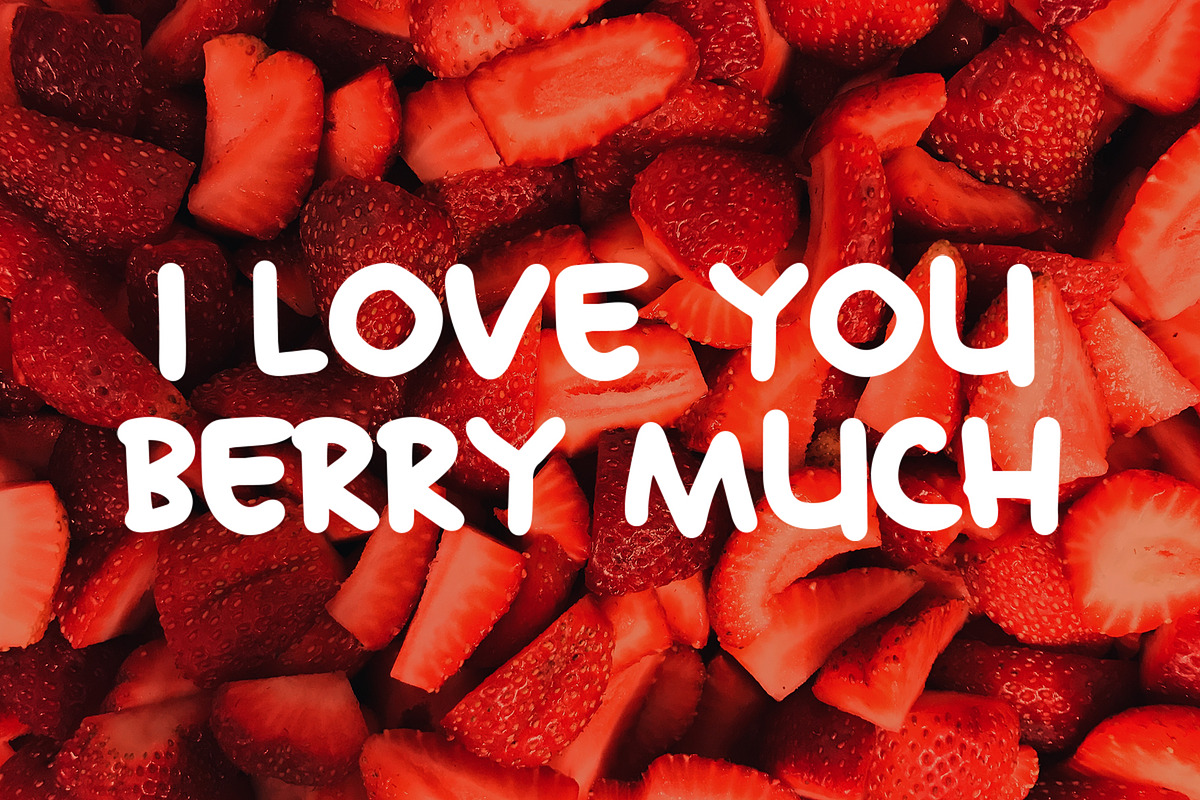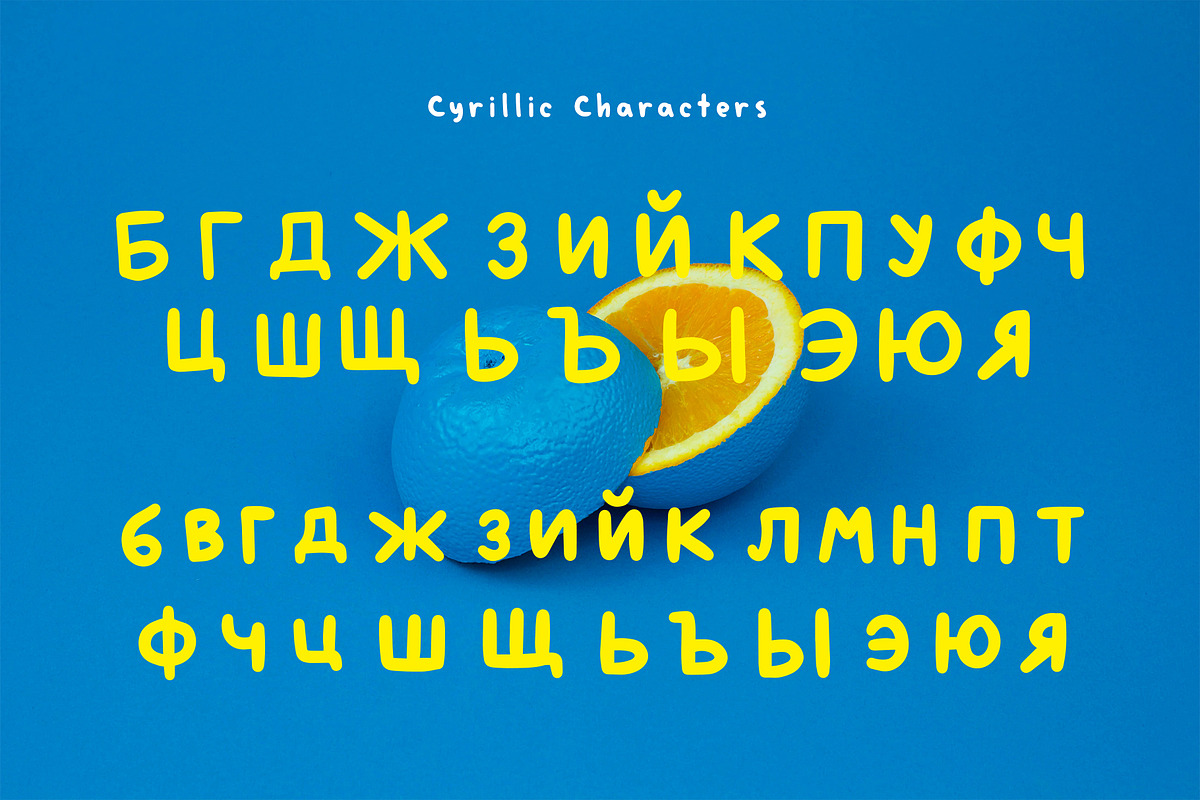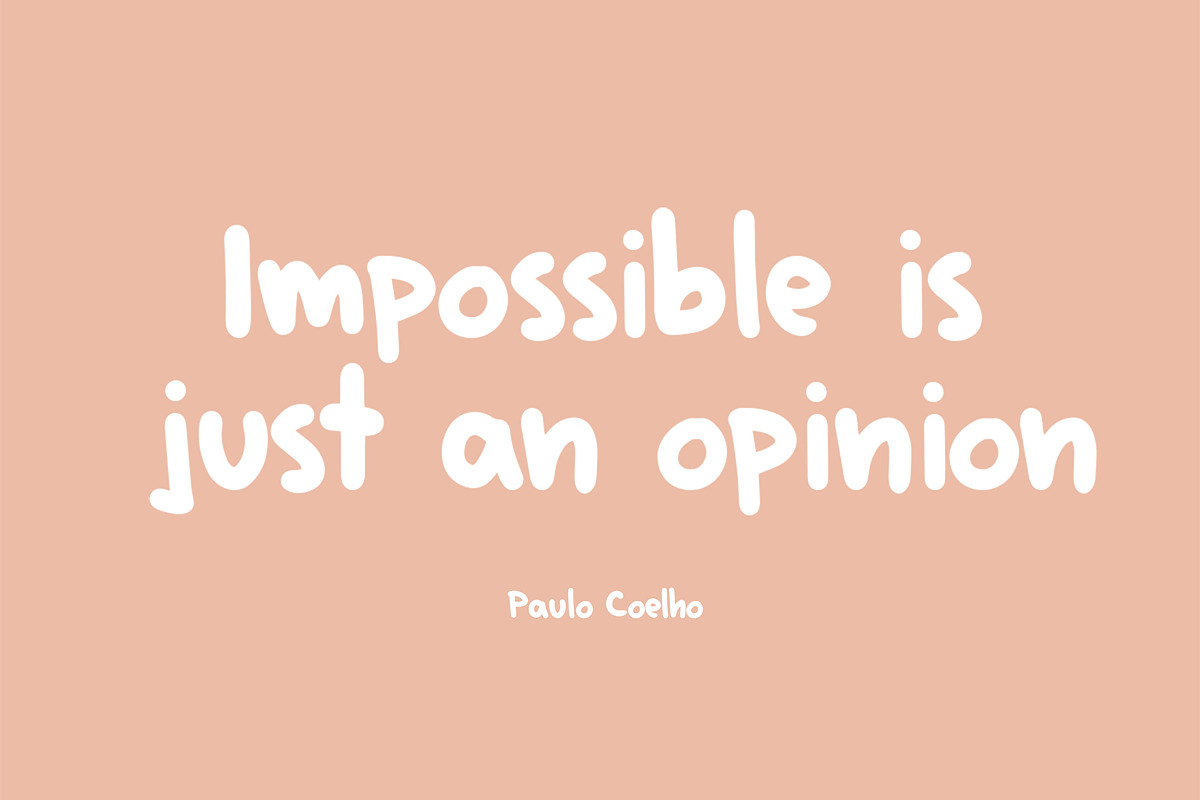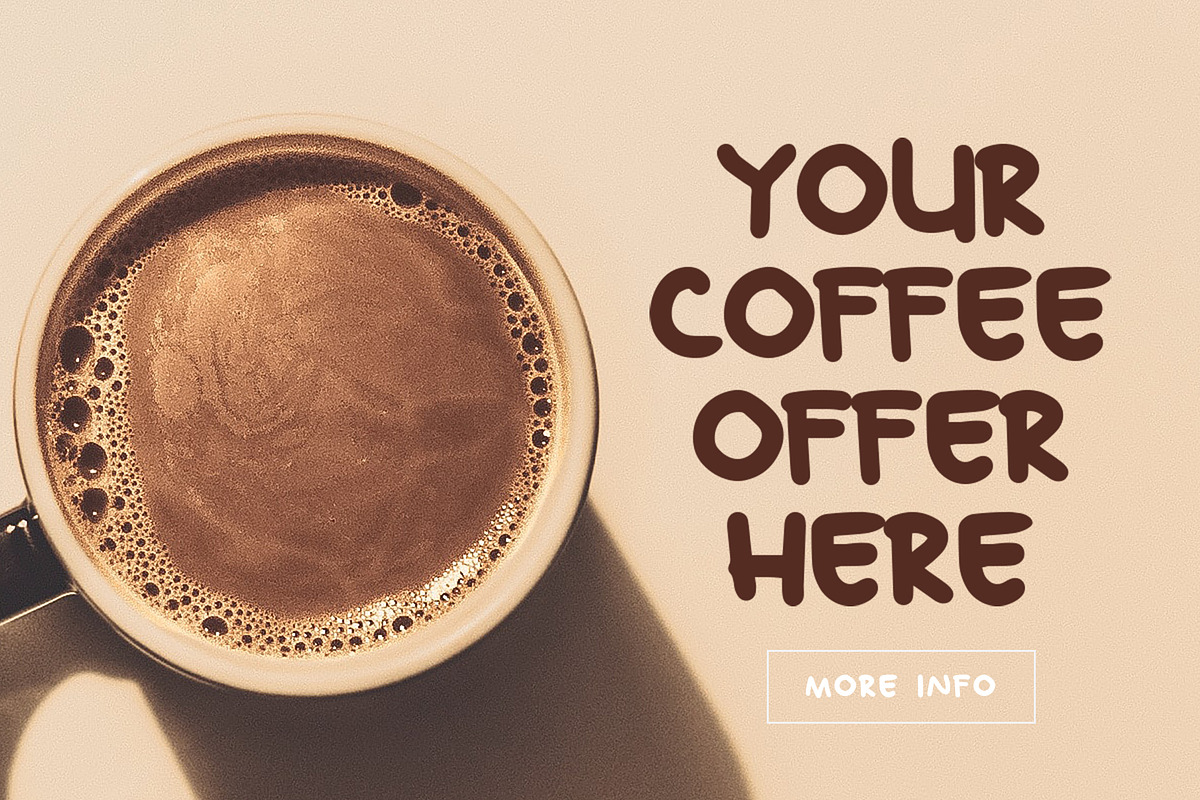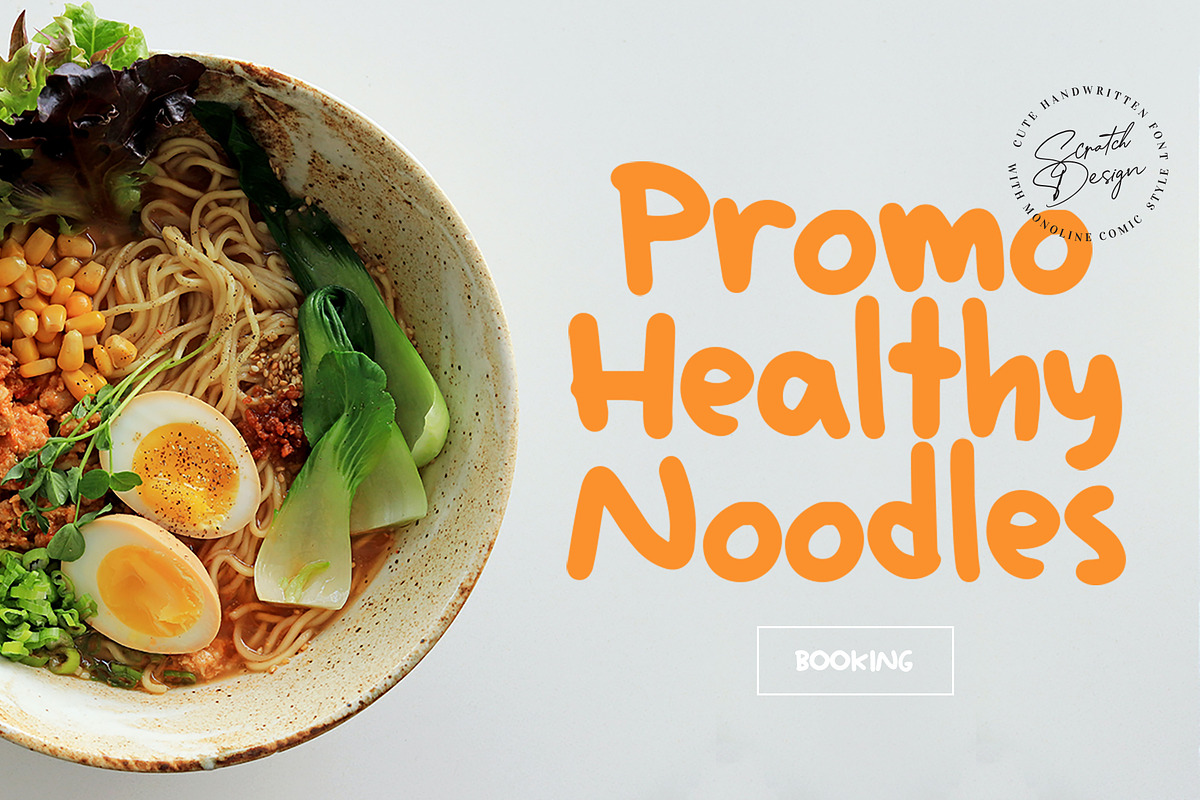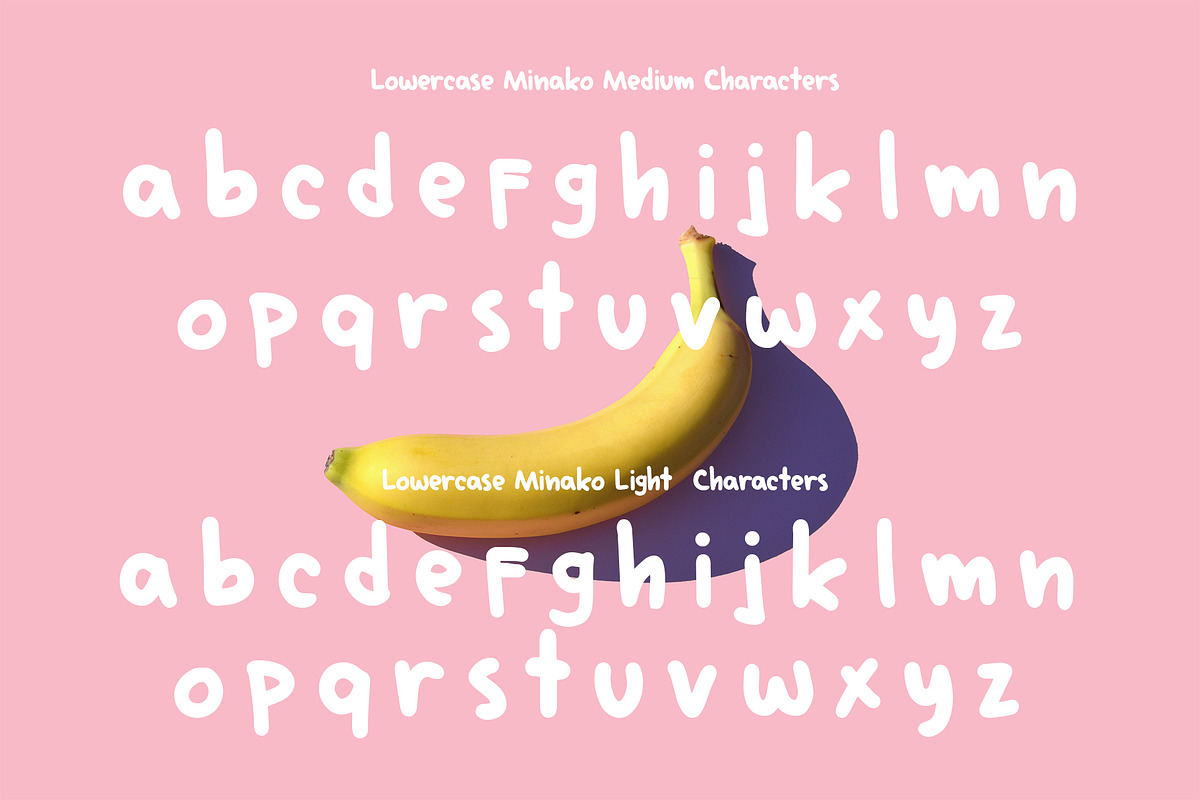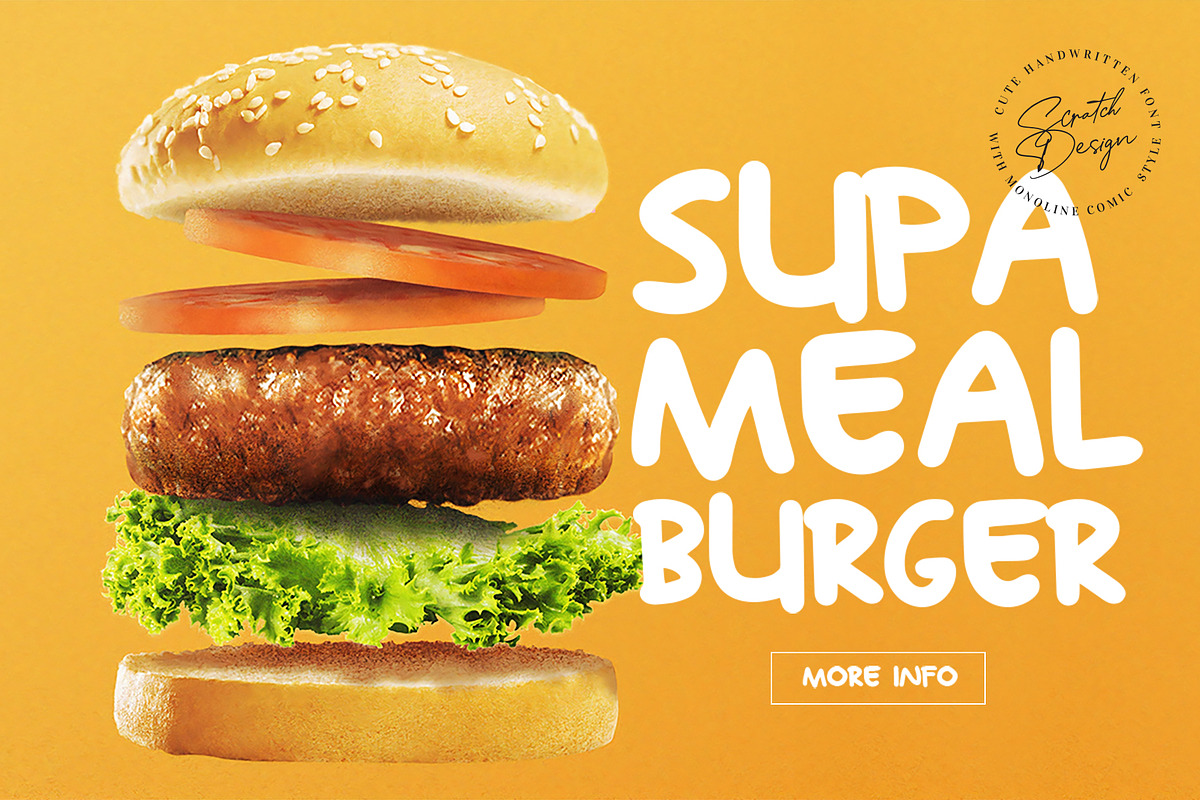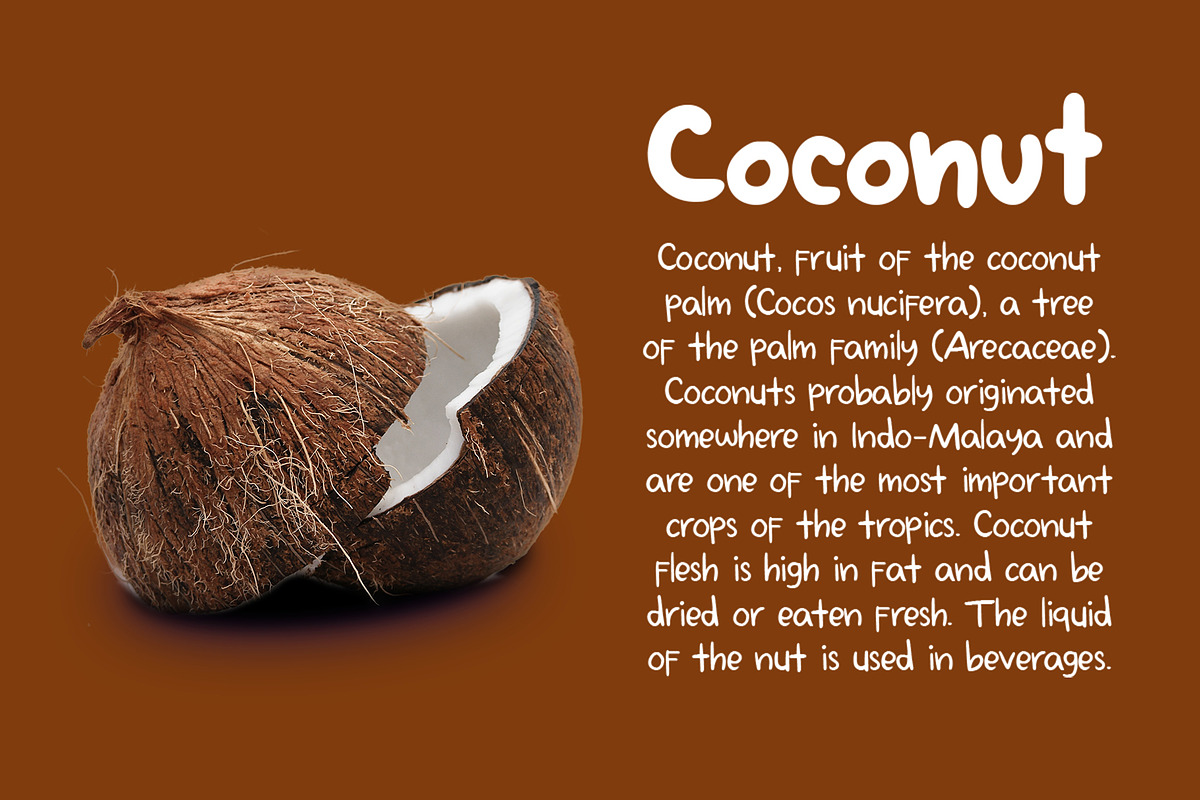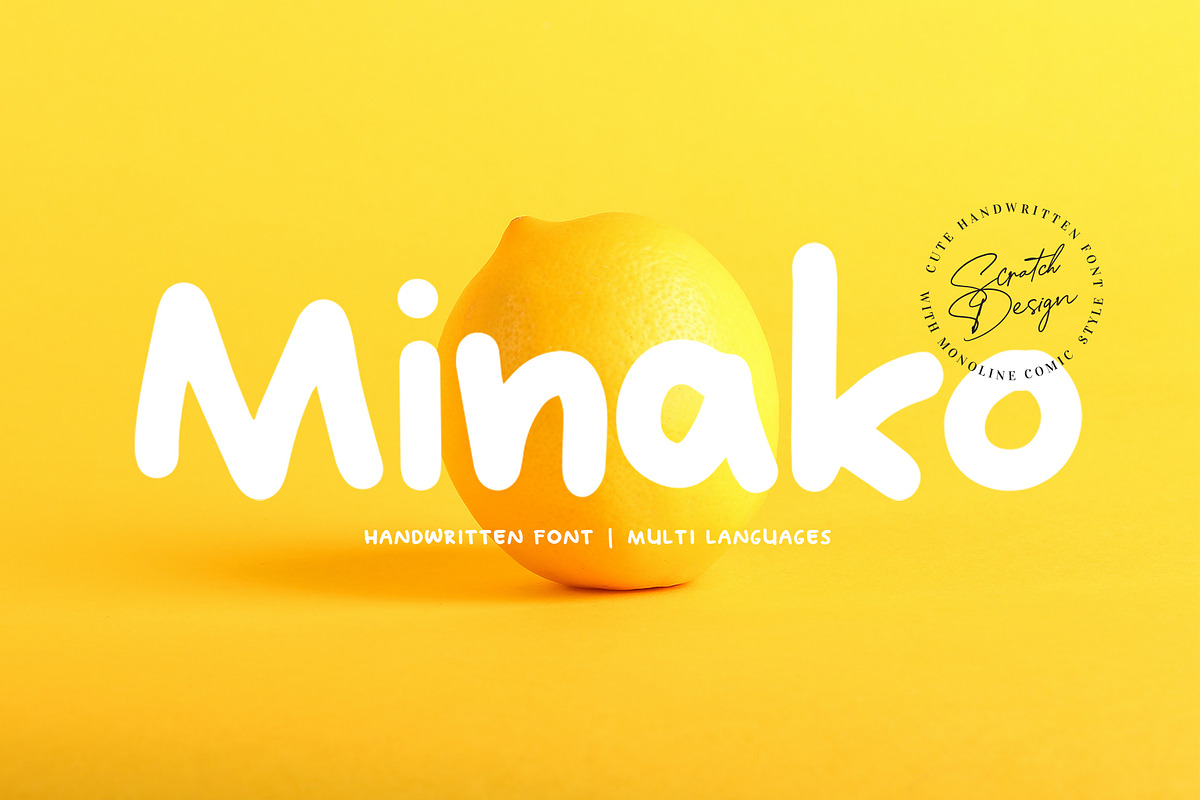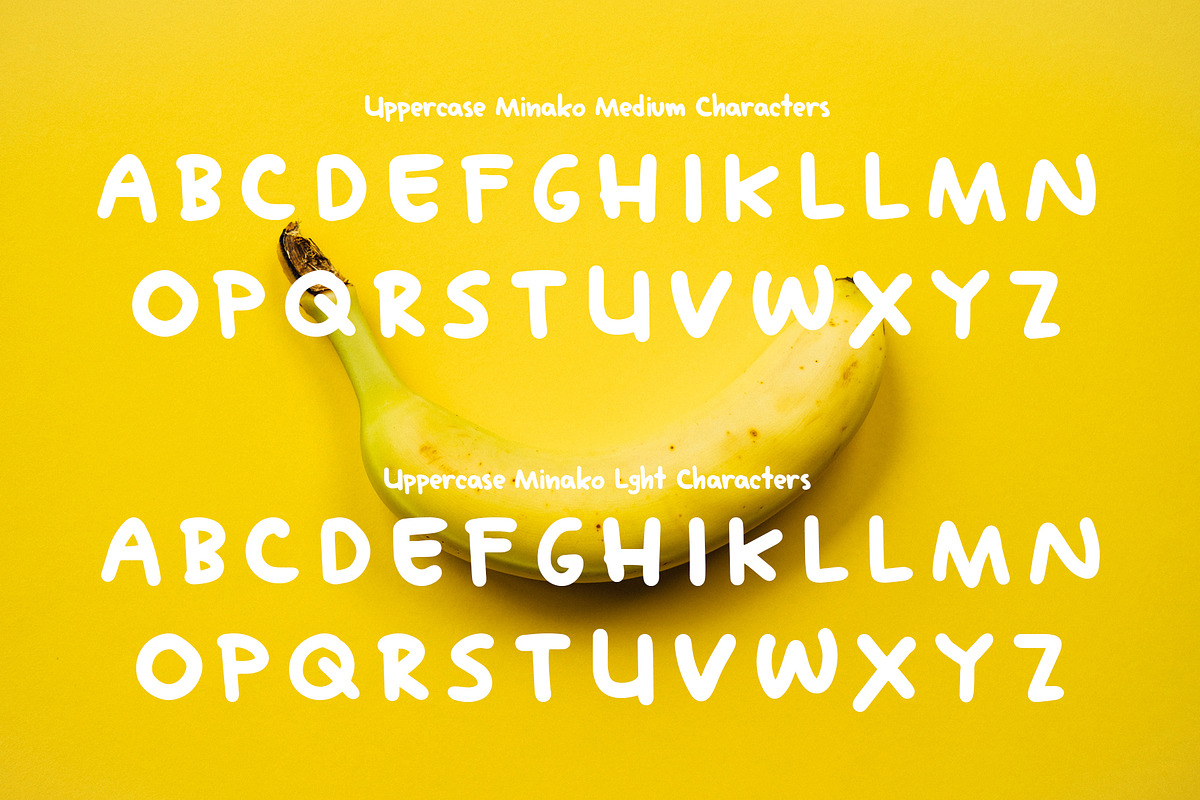
Minako
Minako is a handwritten font with a casual style. This font provides a regular and light character that you can use on any occasion. This font is a match for a comic, novel, book children, quote, menu, brochure, invitation, logo, etc. Minako includes multi-language, also until Cyrillic characters. So let's download Minako and create some amazing designs and artwork.